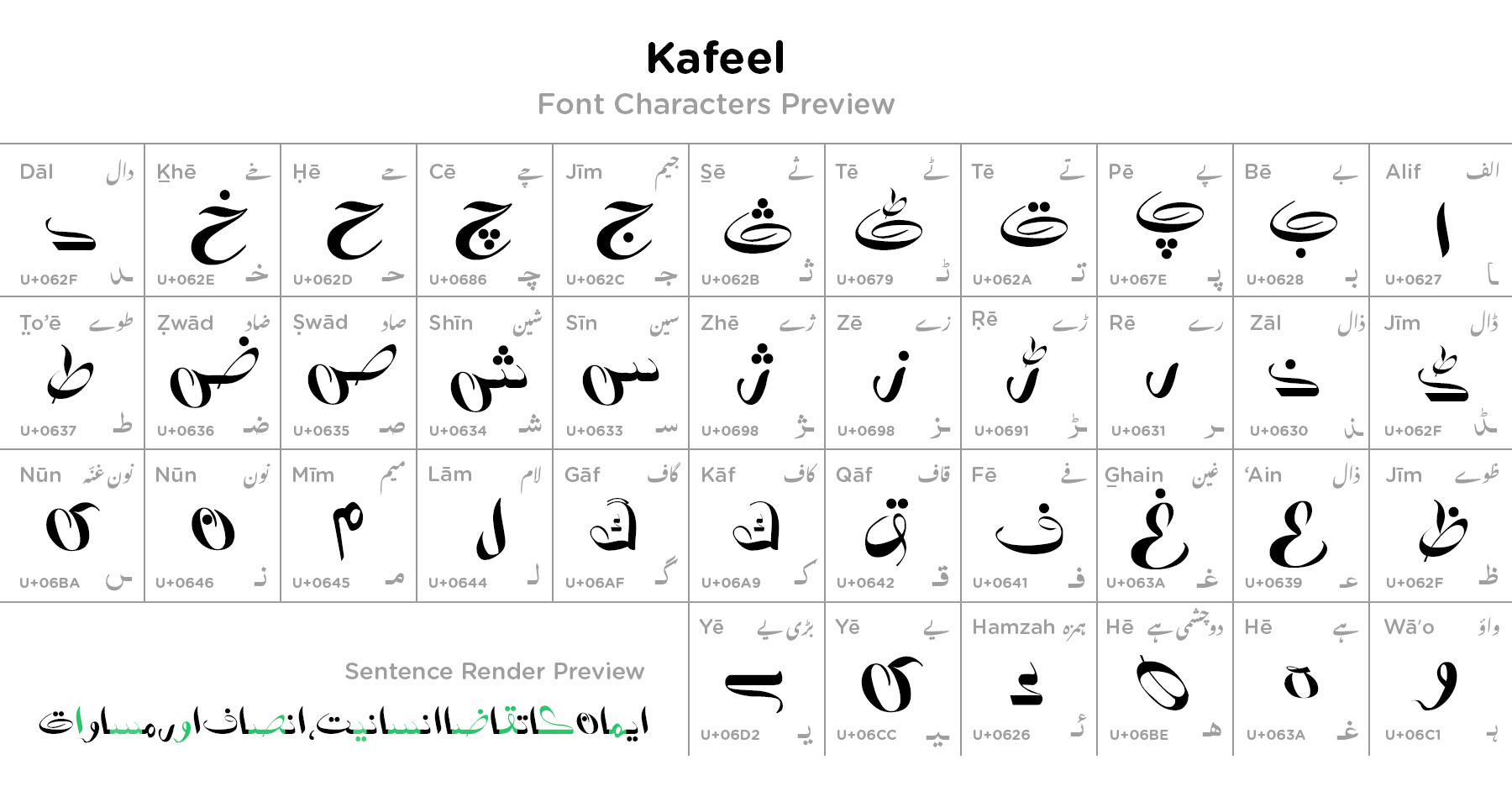
Kafeel is a contemporary TrueType Urdu calligraphy font, available online for personal use. This font is a modern interpretation of the traditional Nastaliq style. It achieves both beauty and visibility by combining beautiful, flowing curly strokes with gentle curves and filled letters, with a harmonic balance. Its commitment to traditional calligraphy is evident in its graceful strokes, with subtle thickness variations that add depth. This decorative font with its elongated curly strokes, adds the essence of traditional Qalam writing to your text. The carefully crafted ligatures and diacritics maintain the natural rhythm and beauty of Urdu script. It has a large character set and necessary glyphs which makes it suitable for artistic purposes such as attractive banners, posters, advertising, and more.